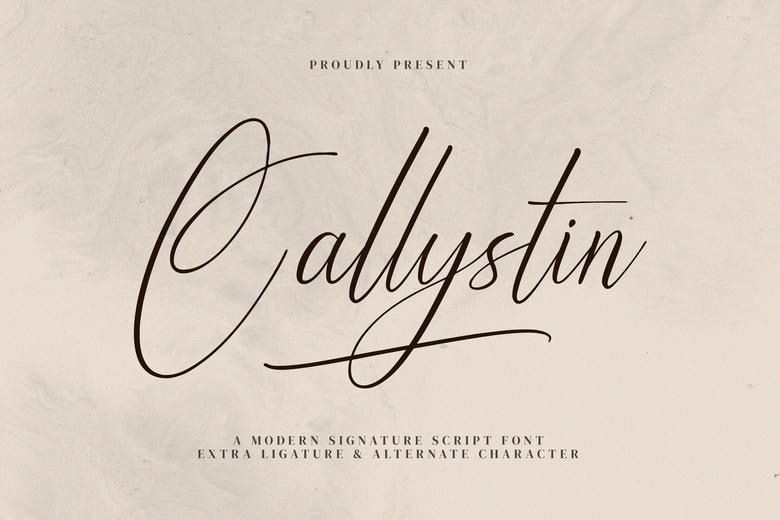
Callystin Font
Callystin is a stylish and elegant script font with smooth, flowing letters. It has a modern look, perfect for creating unique and personal designs. Ideal for logos, invitations, and any project that needs a touch of sophistication.
Callystin Signature Script Font